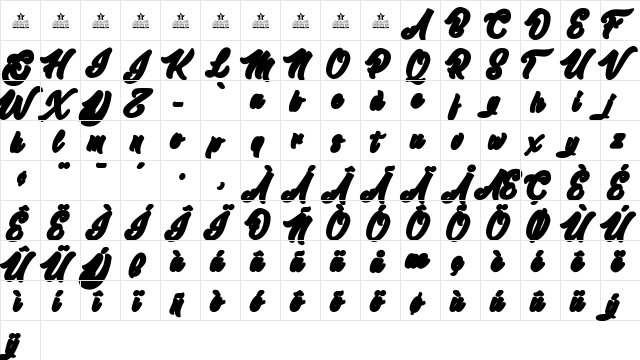
Master of Comics Back Personal Regular
| Foundry | Billy Argel |
| Designer | Billy Argel |
Design Context for Master of Comics Back Personal Typeface
Master of Comics Back Personal has an approachable, lighthearted character — its loose, expressive forms are well-suited to children's content, casual branding, and fun-first design.
Well-suited to food and beverage brands with personality, educational materials, and fun-forward identities.
Font Pairing: Pairs well with a rounded or humanist sans for body copy, maintaining the friendly tone without relying on Master of Comics Back Personal to carry extended reading.
Pro Tip: Use Master of Comics Back Personal at larger display sizes where its expressive character can land. Pair with a clean, simple sans for body copy to maintain readability.